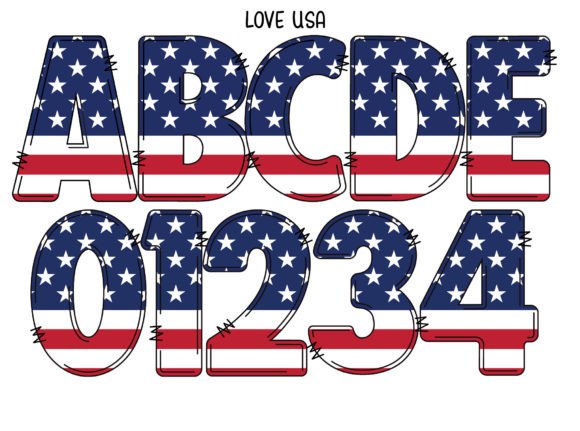
Introduction to Love Usa Font
Love USA is a cool and uniquely crafted patriotic color font.
Its fun and playful characters make it the perfect font for stickers, mugs, t-shirts, ornaments, independence day event cards, event invitations, and many more .